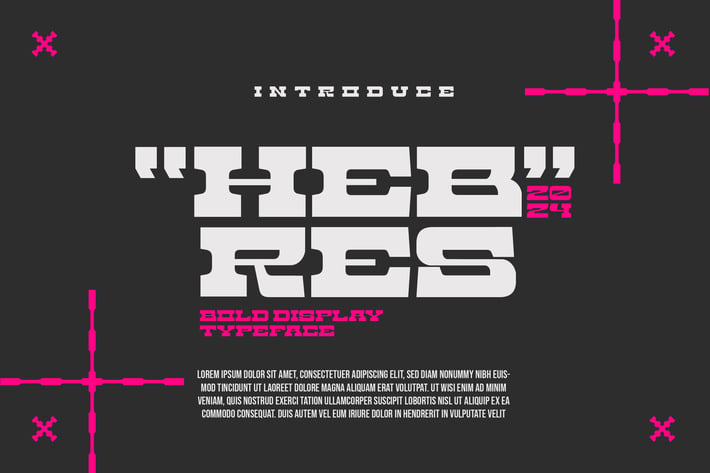
Hebres - Retro Display Typeface
Hebres is a bold sans serif font featuring modern, futuristic, clean, characters that seem to dance along the baseline.